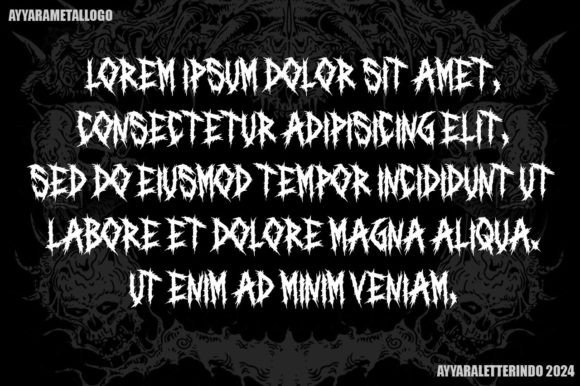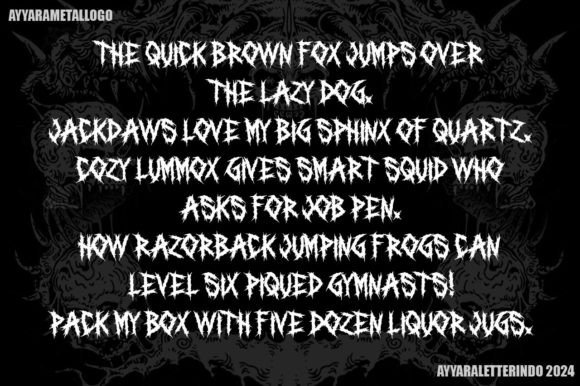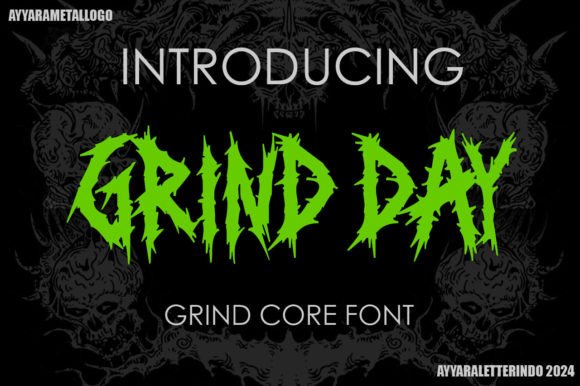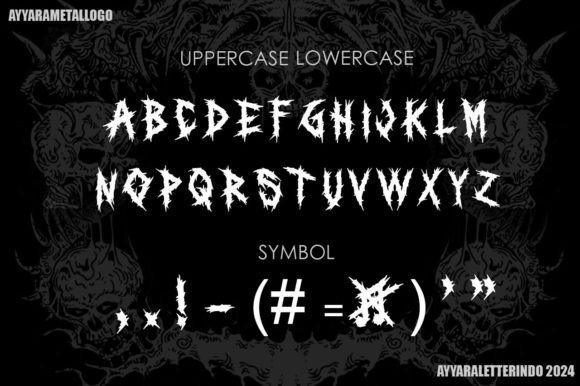
Grind Day Font: Brutal Blackletter for Metal Logos & Design Resources
About the Grind Day Font
Get ready to be inspired by Grind Day Font, a fresh and dynamic typeface for modern creators. Grind Day is a metal font that can be used for logos or branding and your metal band name. You can immediately make your band or brand logo name with the help of this unique blackletter font. Combine it with the black metal or death metal ornaments and make your cool metal design with easy!
Grind Day’s aggressive, angular forms are ideal for headlines, posters, and short impactful branding elements where a strong, rebellious statement is needed. It excels in creating logos for metal bands, gaming projects, or streetwear brands targeting a similar aesthetic. Avoid using it for body text or UI elements; its low x-height and intricate details hinder readability in smaller sizes or continuous text.
Pairing Grind Day with a clean sans-serif like Montserrat or a geometric sans-serif like Futura adds a modern contrast, grounding its intensity. For a more classic feel, a simple serif like Garamond or a slightly more decorative serif like Didot can create effective visual balance. Consider these pairings to control the overall visual impact; the contrast allows Grind Day to shine without overwhelming the design.
Its core personality is bold, aggressive, and unapologetically raw. This makes it unsuitable for projects requiring elegance or subtlety, but perfect for conveying power, rebellion, and a raw, unfiltered energy.
Grind Day Font Example